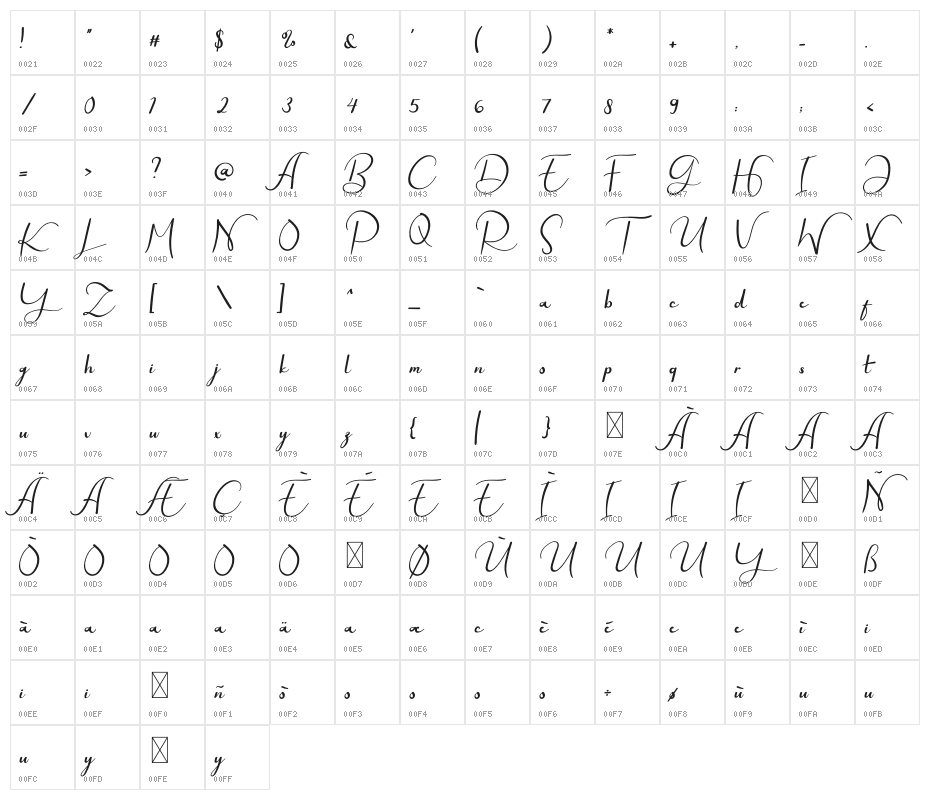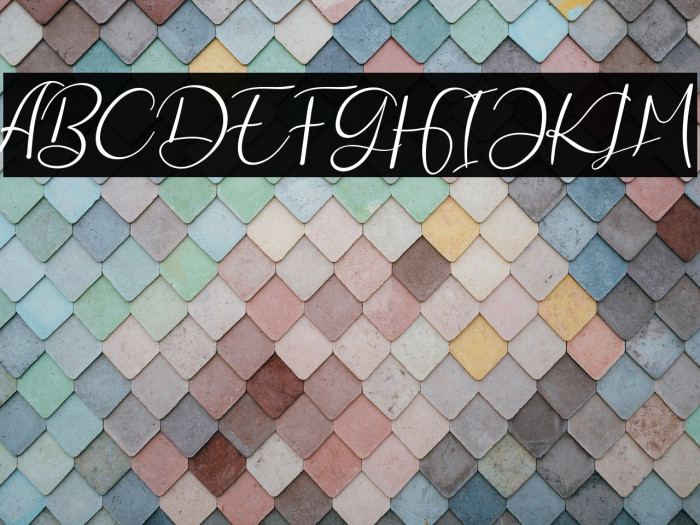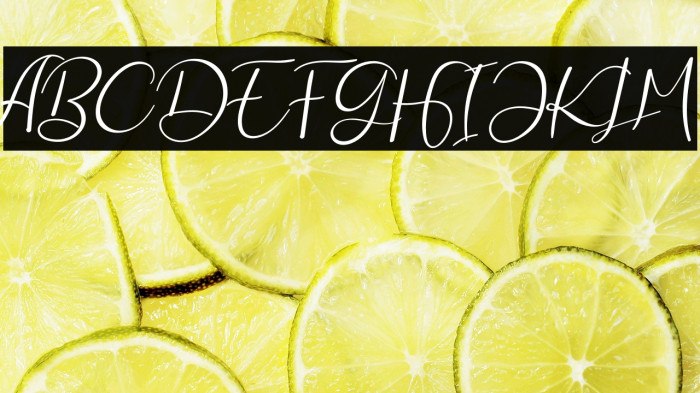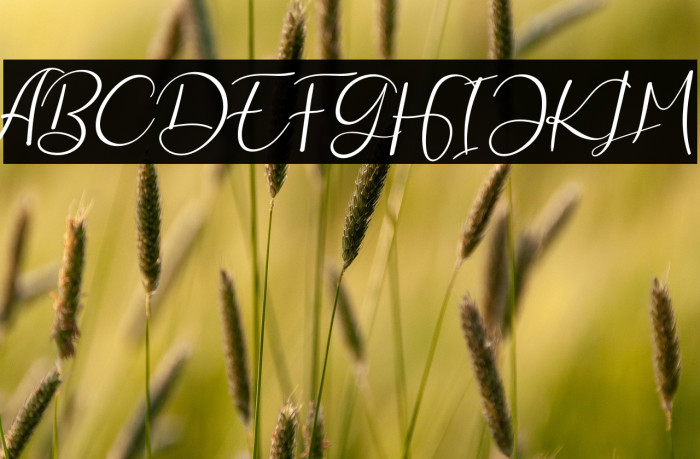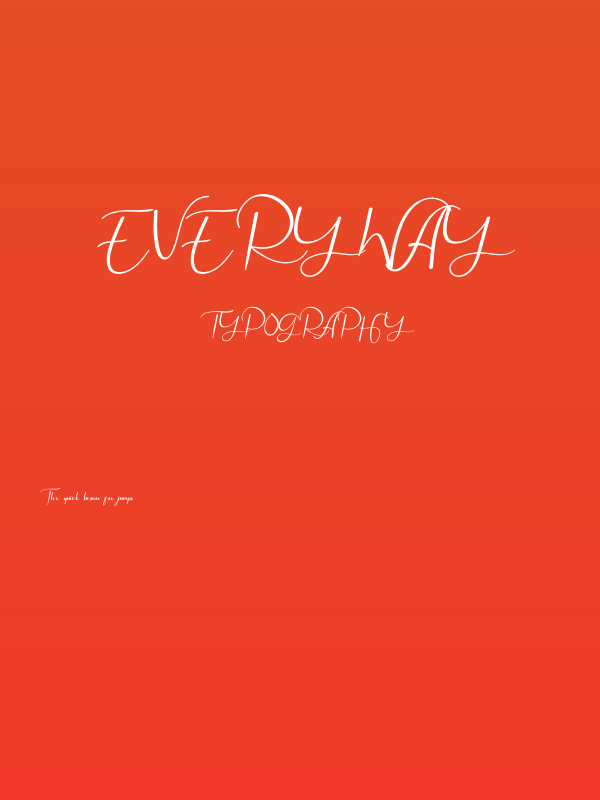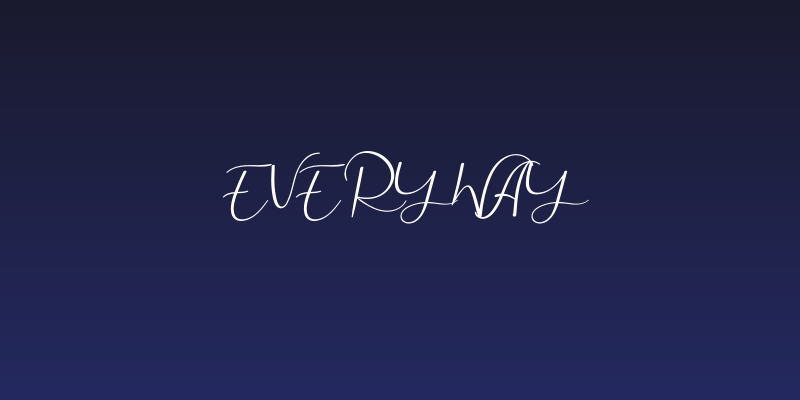
Every Way Font
Every Way Description
This font exhibits a dynamic and flowing script style, characterized by its elegant and cursive letterforms. The uppercase letters are particularly ornate, with sweeping curves and a sense of movement that adds a touch of sophistication. The lowercase letters maintain a consistent style, offering a harmonious blend with the uppercase. Numbers and special characters are crafted with the same attention to detail, ensuring a cohesive appearance across all elements. This font is ideal for projects that require a personal or artistic touch, such as invitations, branding, or decorative headlines.
| Use Case | Headlines, Logos, Invitations |
| Proposed Projects | Ideal for invitations, branding, decorative headlines, and artistic projects. |